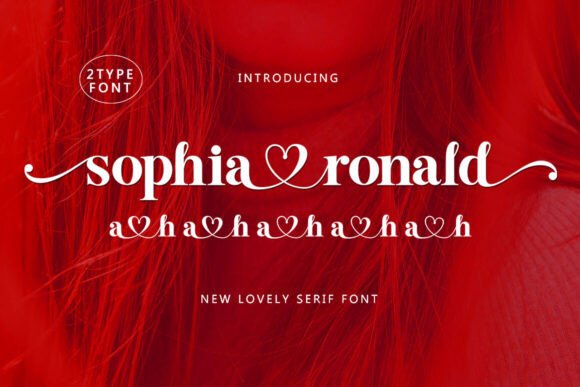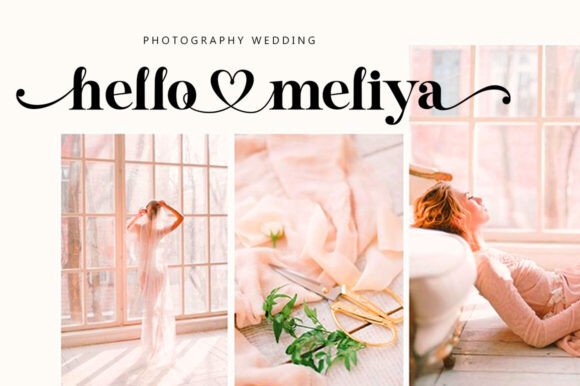
Sophia Ronald Font
Introducing Sophia Ronald, a stunning Serif Font that will be the center of your attention. This serif font is centered on a delicate heart for large scale key points, beautiful text moments, or eye-catching quotes. With stunning contrast, organic curves, and beautiful, luxurious letters, Hello Honey is a phenomenal choice for any project, whether focused on luxury branding or typefaces.